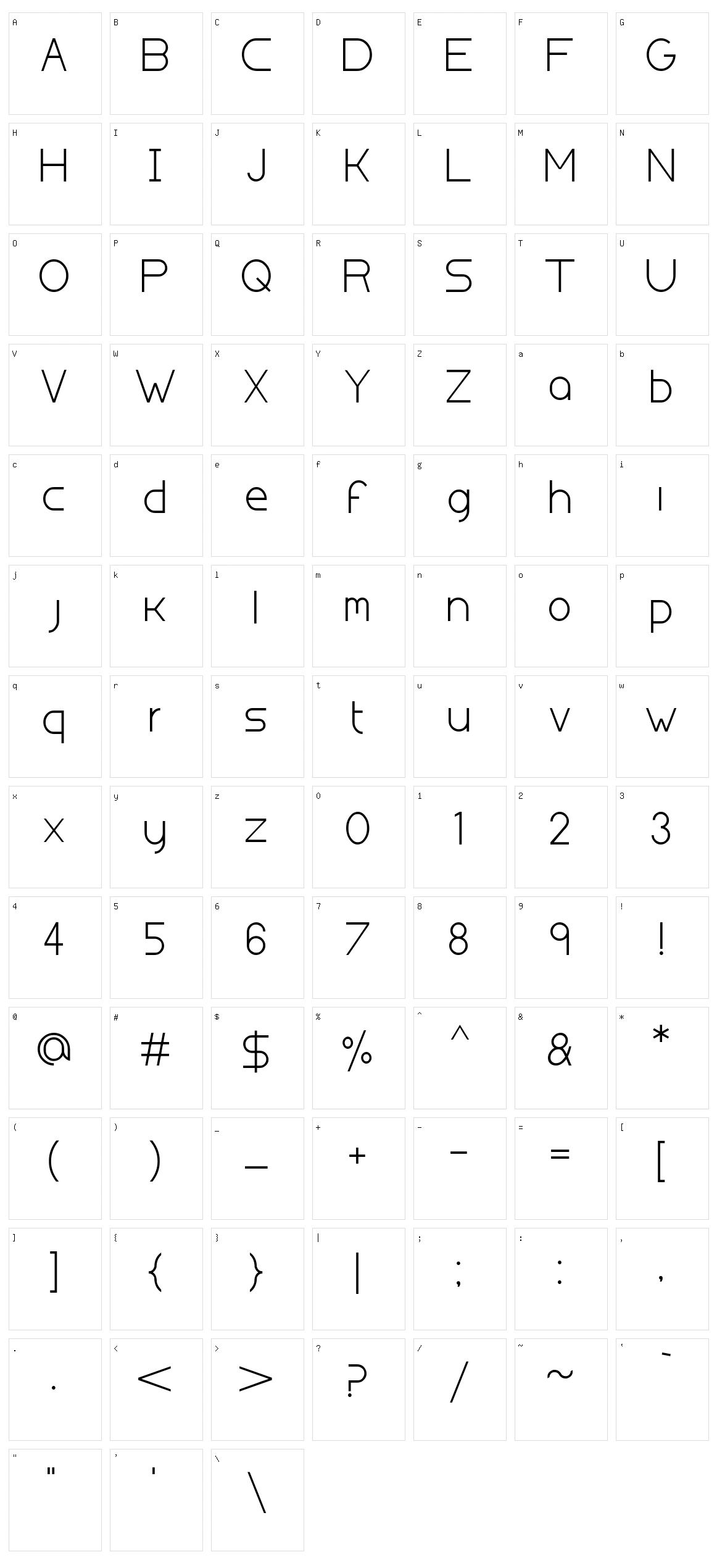
The free font Koln Messe-Deutz is carefully designed by Chequered Ink, showcasing a thoughtful balance of creativity and usability and falls under the Sans serif font style. When you download the ZIP file, it contains only 25.22 KB of font files, making it lightweight and quick to download. Please review the license details below to understand permitted usage and distribution rights. If license information is not available, we recommend using this font for personal projects only or contacting the author directly for commercial usage permissions.